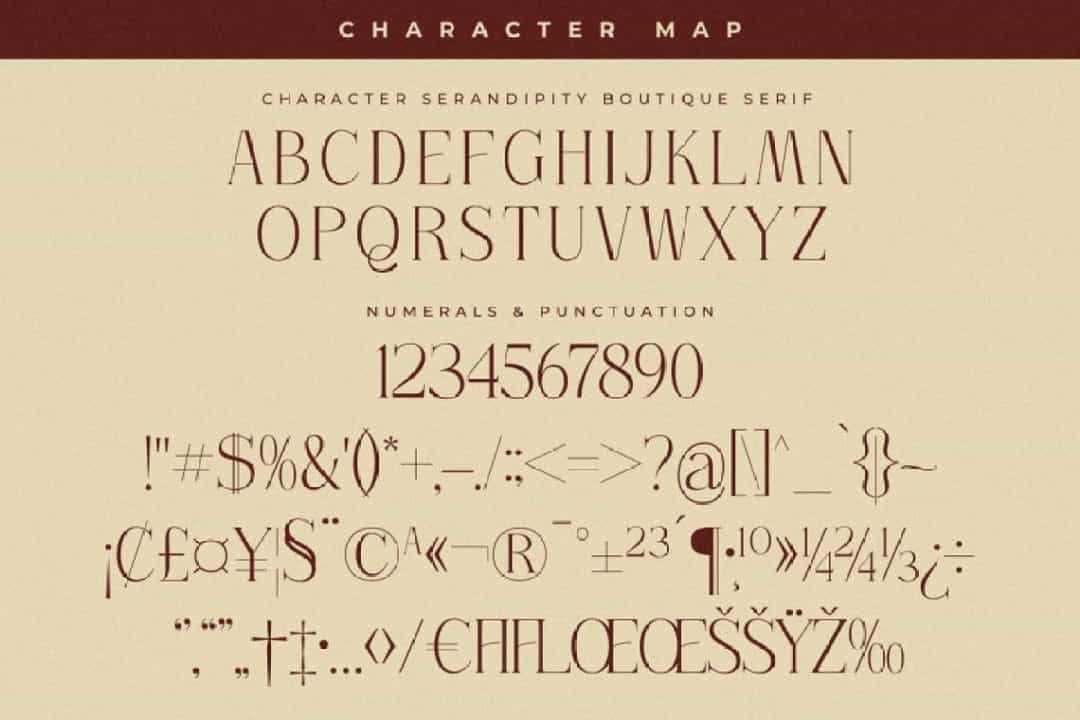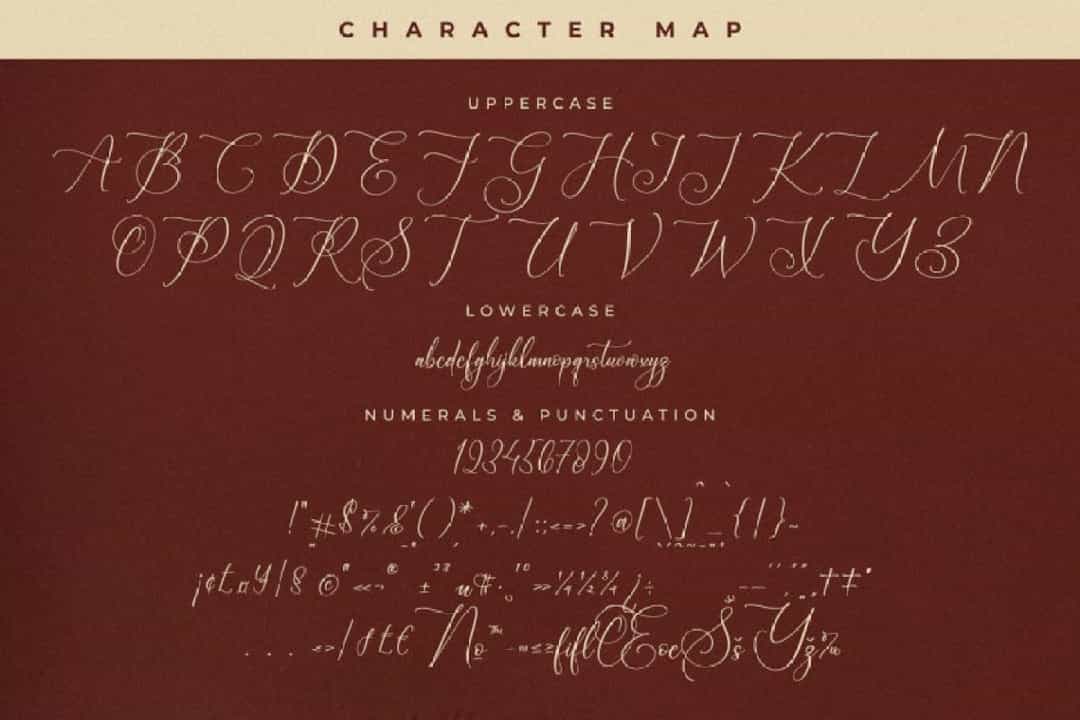
Serandipity Boutiqueis an eye-catching combination of serifs and scripts with its modern appearance. Perfect for creating luxurious logos, movie or book name designs, fashion magazine articles, clothes letters or quotes and much more, Serandipity Boutique makes an impressionful first impression in any setting it’s applied in.